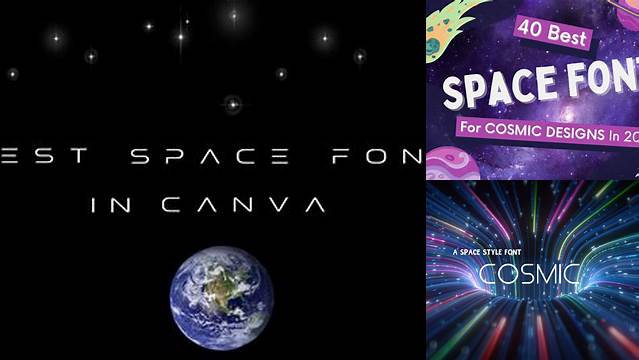
Coolest Space Fonts In Canva: A Cosmic Guide
Hey everyone! Ever wanted to give your designs that awesome, out-of-this-world vibe? You know, something that screams space exploration, sci-fi, or just a general sense of cosmic wonder? Well, you're in luck! Canva is packed with a ton of fonts that can help you achieve just that. We're diving deep into the best space fonts in Canva, and trust me, there's something for everyone, from the clean and modern to the gritty and futuristic. Get ready to blast off into the world of typography and discover how you can make your designs truly stellar!
H2: Unveiling the Top Space Fonts in Canva: A Stellar Selection
Let's kick things off with a rundown of some of the absolute best space fonts in Canva. These aren't just any fonts; they're the ones that consistently deliver that perfect blend of aesthetic appeal and thematic relevance. When it comes to choosing the right font, you need to consider several things: readability, style, and, of course, how well it complements your overall design. Finding a font that can capture the essence of space can be tricky. It needs to be modern, maybe a bit futuristic, and capable of evoking a sense of adventure. Let's explore some top picks, shall we?
One font that consistently shines is Orbitron. It's a geometric sans-serif that exudes a sleek, modern feel, perfect for conveying a sense of advanced technology and futuristic settings. It’s bold, clean lines make it incredibly readable at various sizes, making it perfect for both headlines and body text. Orbitron is excellent for anything from website headers to posters about space missions. It works well with a wide variety of visuals, and is instantly recognizable. Then there's Bebas Neue, a condensed sans-serif that, while not explicitly space-themed, has a modern and impactful look that can work perfectly for titles and headings. Its clean lines make it versatile, able to be paired with other fonts or used alone. This font is a great option for designing logos, posters and other similar creations. It is a reliable option for any design project you may have.
Another font that makes the list is Montserrat. Montserrat is an incredibly versatile sans-serif that can adapt to numerous design styles. It's clean, modern, and highly readable, making it a solid choice for a wide range of applications. While it doesn't have an overtly space-age feel, its modern aesthetic allows it to be easily incorporated into designs that use space-themed imagery. Anton is another font that can be used. It's a bold, condensed sans-serif that commands attention, making it ideal for impactful headings and short phrases. Its strong presence can create a sense of authority and excitement, perfect for grabbing the reader's attention. The font is perfect for those big, bold statements that you need to make. Finally, there is Raleway. This font is a stylish sans-serif with a slightly more rounded design. This font is great for logos, websites, and other design projects that need a unique touch. This font comes in different styles and weights, allowing for great customization. It's incredibly versatile and can be used for both headings and body text. These fonts are just a few of the many options available in Canva. The versatility and unique looks of these fonts will make sure that your projects are as good as they possibly can be.
H2: Decoding Font Styles: Matching Space Aesthetics with Your Design
Understanding the different font styles is crucial when you're aiming for that space aesthetic in your designs. Each style evokes a different mood and can drastically alter the overall feeling of your project. Do you want something futuristic and sleek, or something that's a little more raw and industrial? Knowing this helps in choosing the best fonts to match. Let's dive into a few key styles and how they align with the space theme.
First up, we have sans-serif fonts. These are the workhorses of the design world, characterized by their clean lines and lack of serifs (those little decorative strokes at the end of letters). Sans-serif fonts like Orbitron and Montserrat are excellent choices for a modern, technologically advanced feel – perfect for evoking the sense of space exploration and cutting-edge technology. These fonts are extremely readable, making them ideal for both headlines and body text. Then there are serif fonts. These are more traditional fonts, which can bring a sense of history and gravitas to a space-themed design. While they may not be the first thing you think of when you think of space, they can be incredibly effective, especially when paired with modern elements. This combination creates an interesting juxtaposition that can really make your design stand out. These can be good for any space design projects you have, if they are mixed with other modern elements.
Next, we have script fonts. These fonts mimic handwriting and can bring a touch of elegance and personality to your space-themed designs. They can be great for titles, quotes, or adding a human touch to your design. While a script font alone might not scream “space,” combining it with a sans-serif font can create a balanced, eye-catching design. Script fonts can be used to add a unique touch to any design project that you have. Finally, we have display fonts. These are meant to be used sparingly, for headlines and other attention-grabbing elements. Display fonts often have unique and creative designs, such as the Anton font. They can be great for creating a strong visual impact, but should be used with caution so that they do not overwhelm the other elements of your design. Display fonts are able to create a strong impact on any project, making them very useful.
H3: Geometric Fonts and the Futuristic Feel
Geometric fonts, known for their clean lines and structured shapes, are perfect for capturing the futuristic aesthetics often associated with space. Their minimalist approach aligns with the advanced technology of spacecraft, space stations, and digital interfaces. Fonts such as Orbitron fall into this category and exemplify the precise, calculated design that speaks to the elegance of space exploration. When creating space-themed designs, consider how these types of fonts can communicate concepts such as innovation, progress, and a sleek modernism. They can really tie in all of the concepts.
H3: Gritty and Industrial Fonts: Representing the Rough Edges of Space
Not all space exploration is smooth and polished. Sometimes, you need to reflect the ruggedness and reality of space travel. Gritty and industrial fonts can communicate this roughness effectively. These fonts might appear worn or have a slightly imperfect look, reflecting the tough conditions and the tangible challenges involved in space activities. Think of fonts that have a textured finish. Fonts like this can inject authenticity into your designs, showcasing the human element behind the quest to understand the universe.
H2: Canva's Font Library: Your Gateway to Cosmic Typography
Canva's font library is your launchpad for space-themed typography. The platform offers a wide variety of fonts, all easily accessible and customizable. You can filter by style, which is extremely helpful when you're looking for a specific aesthetic, like futuristic or modern. Let's take a closer look at navigating and utilizing Canva's impressive font selection.
H3: Navigating Canva's Font Search for Space-Themed Styles
Using Canva's search tool to find fonts is simple. Start by entering terms like